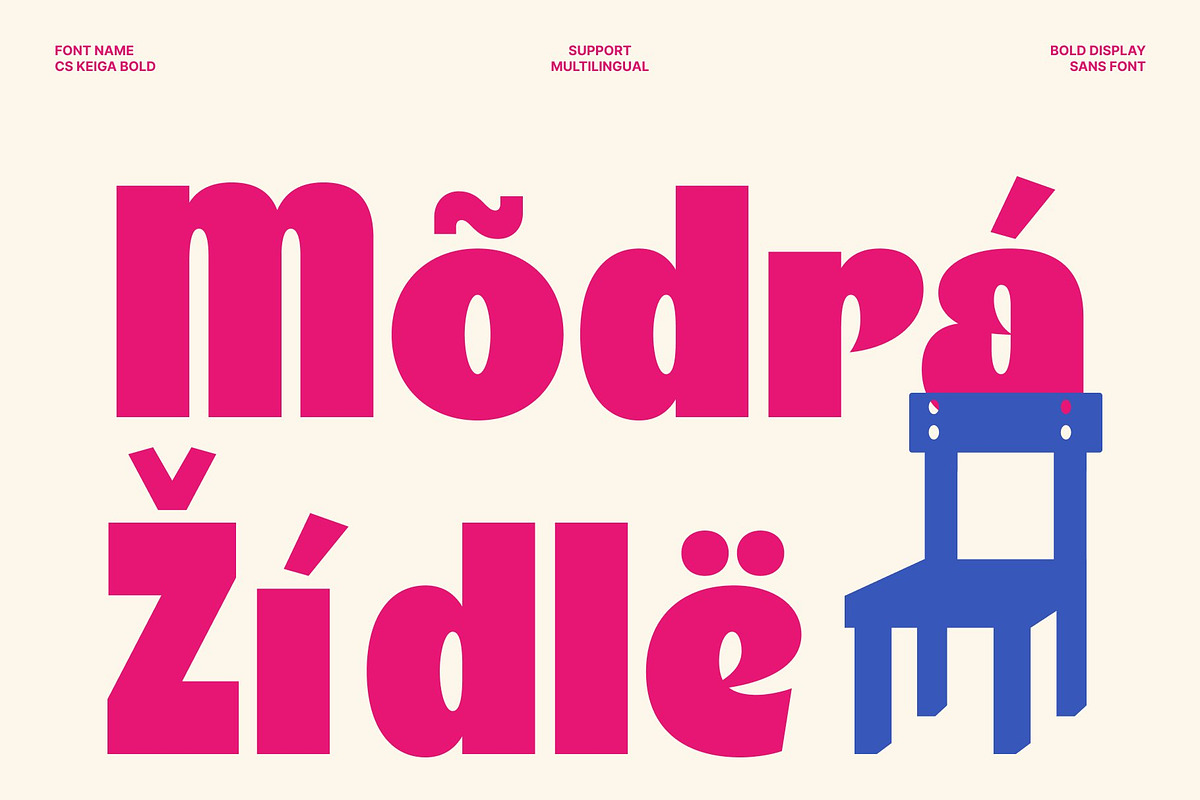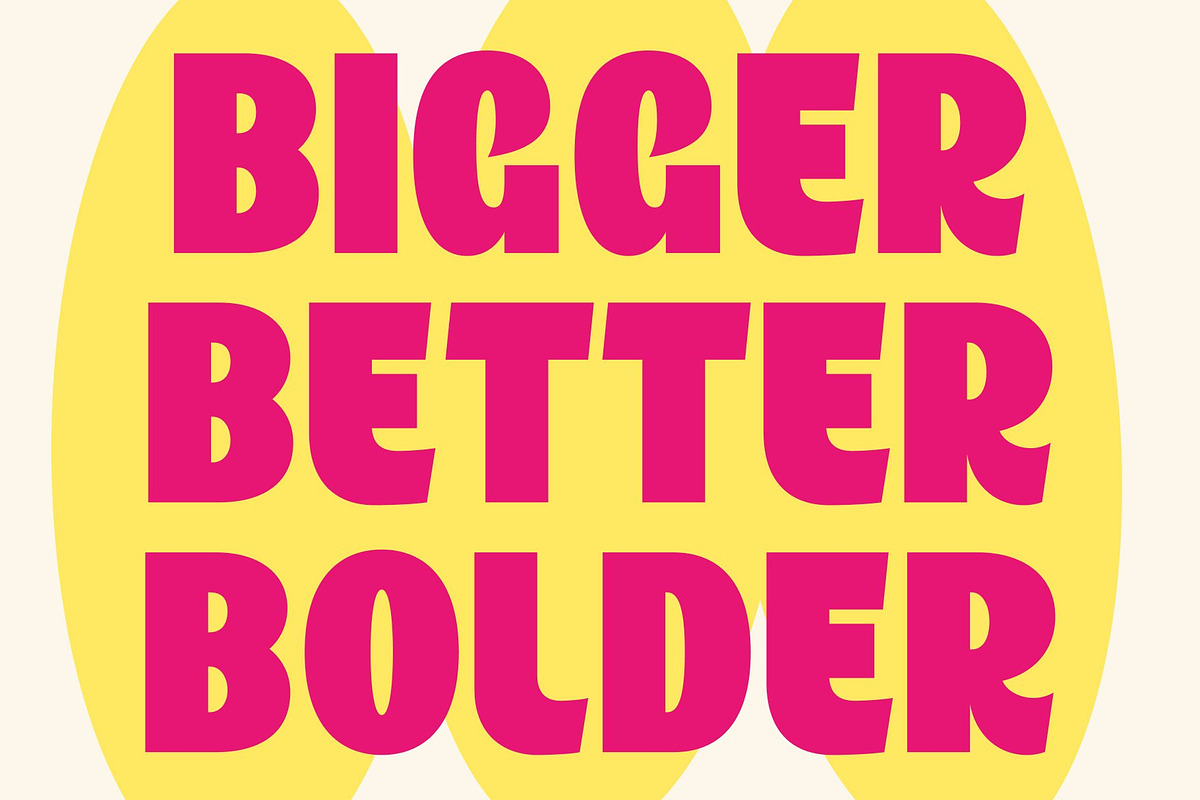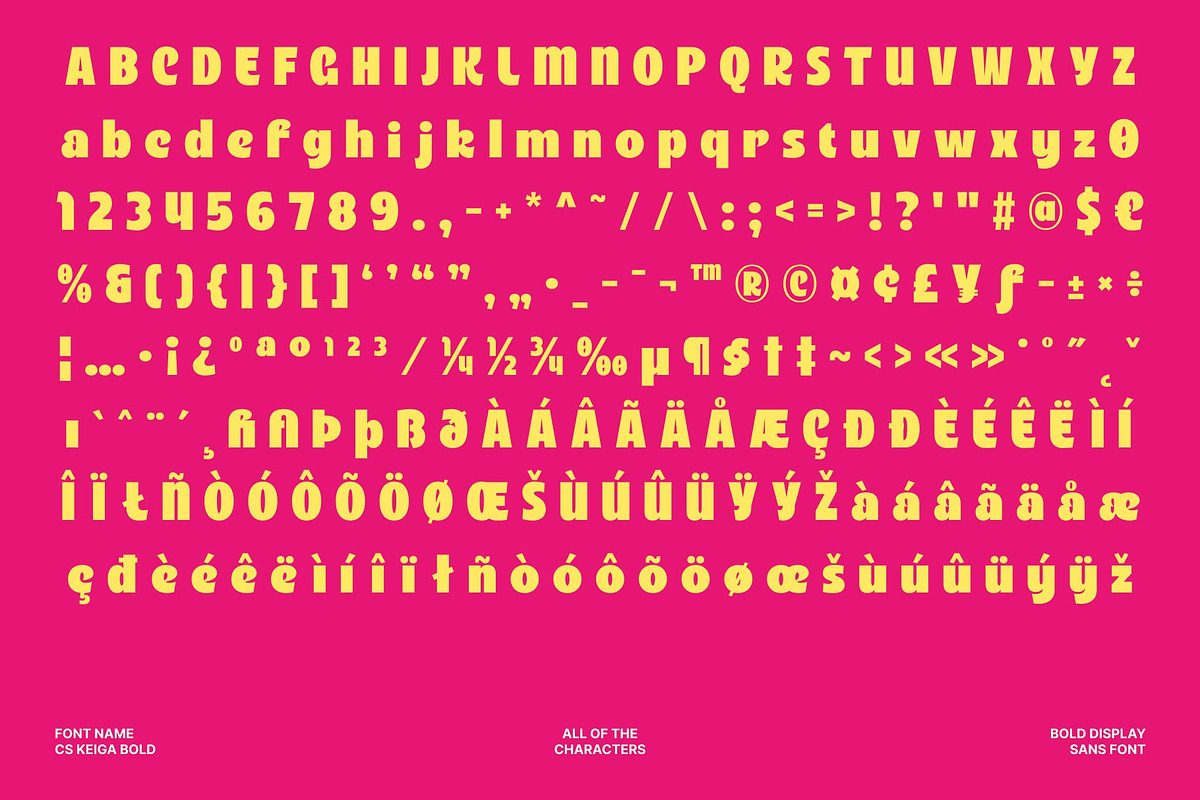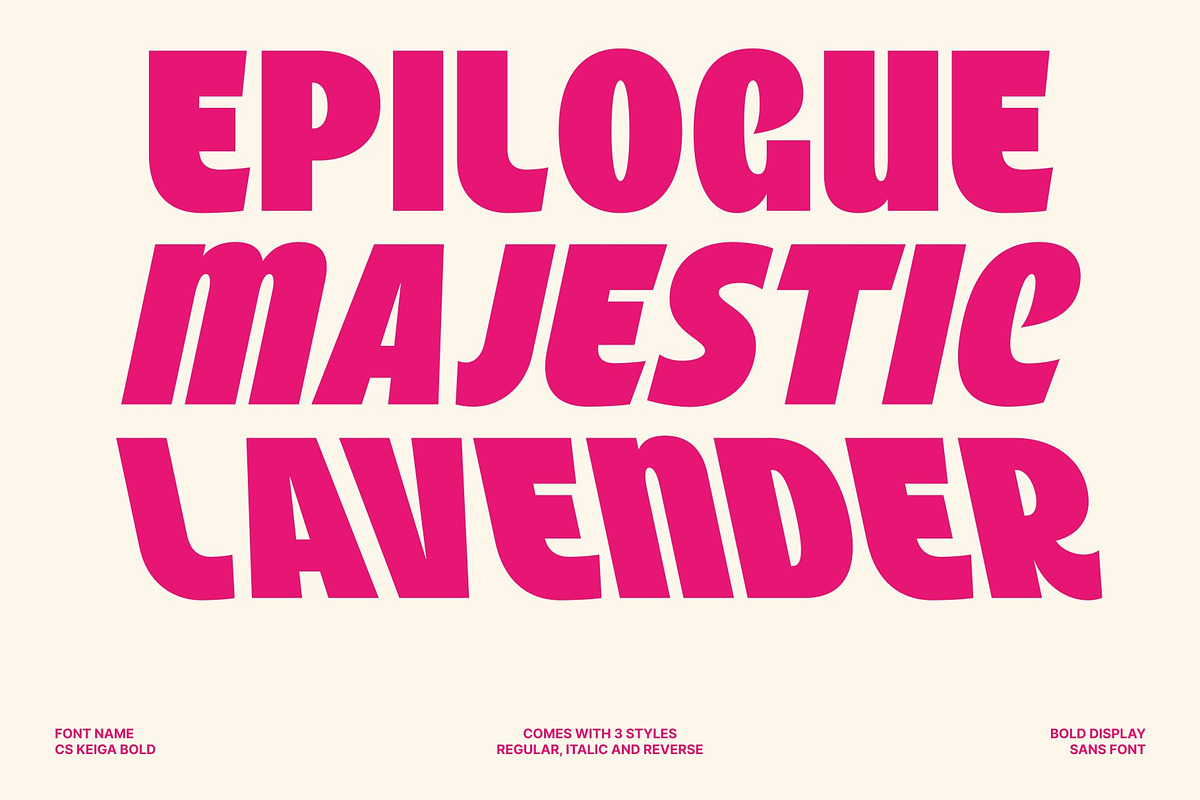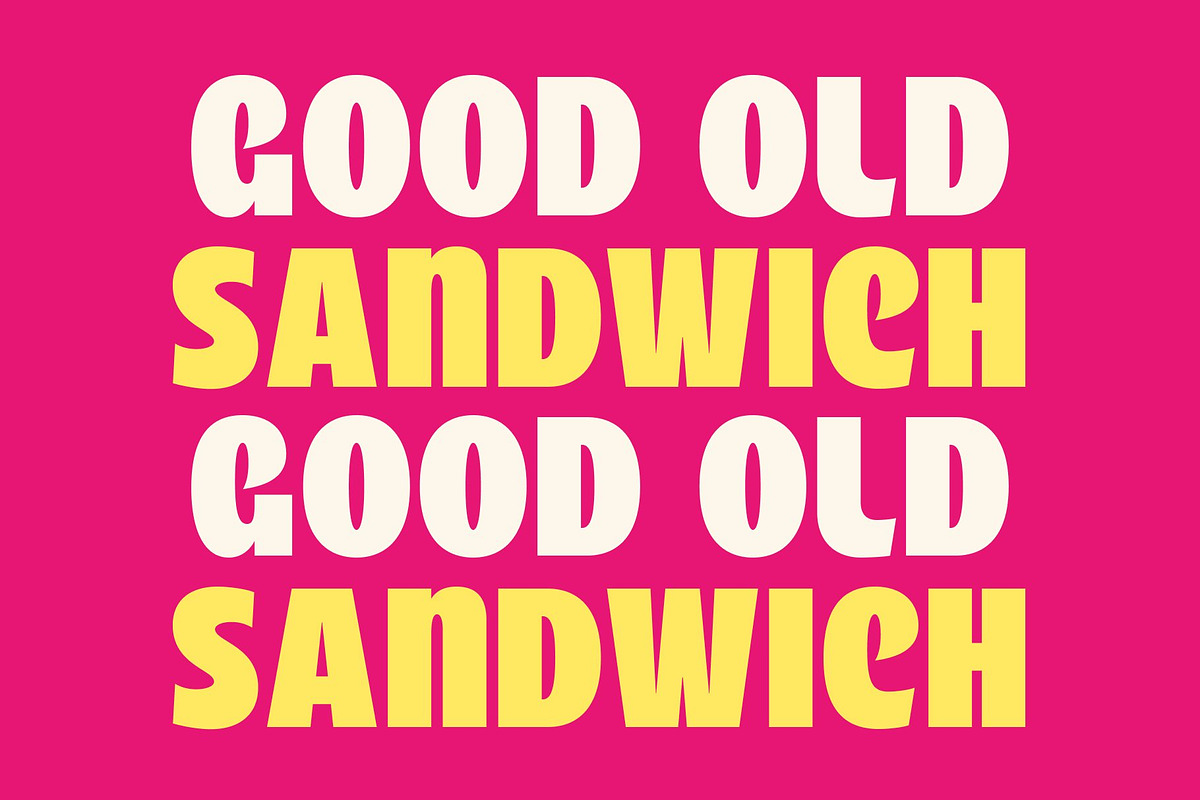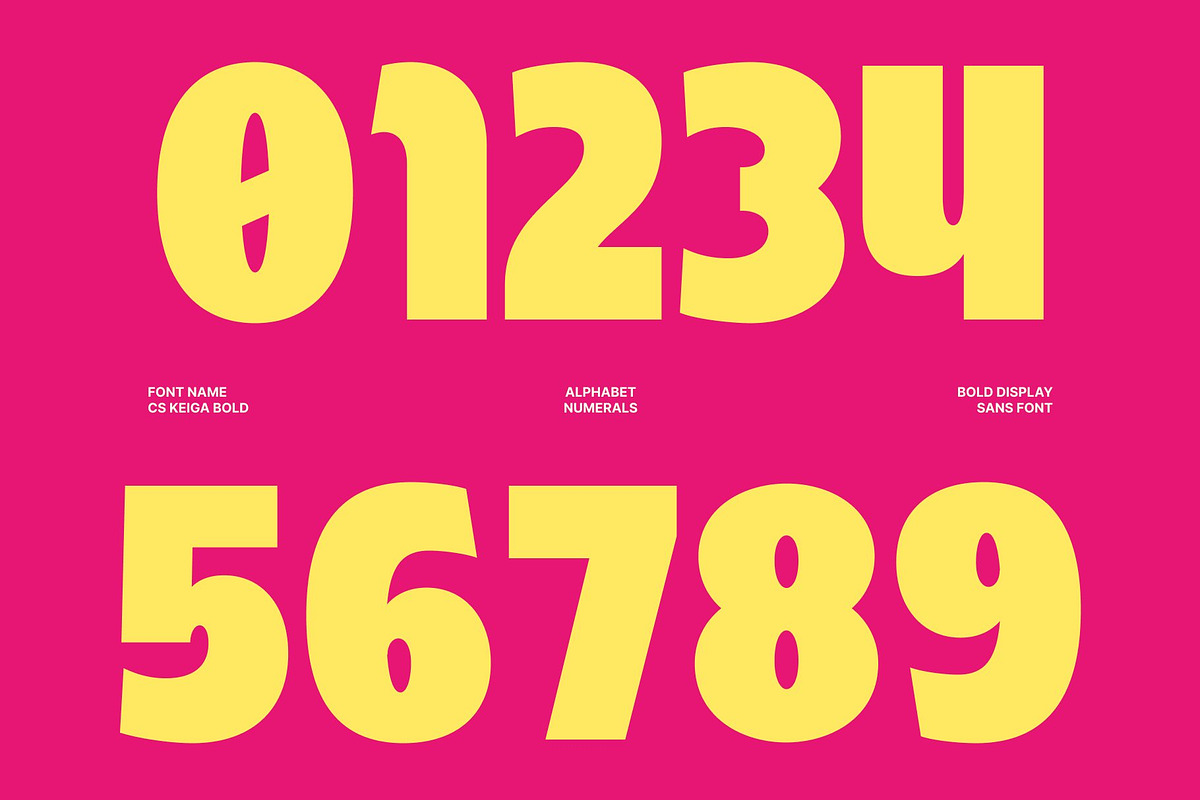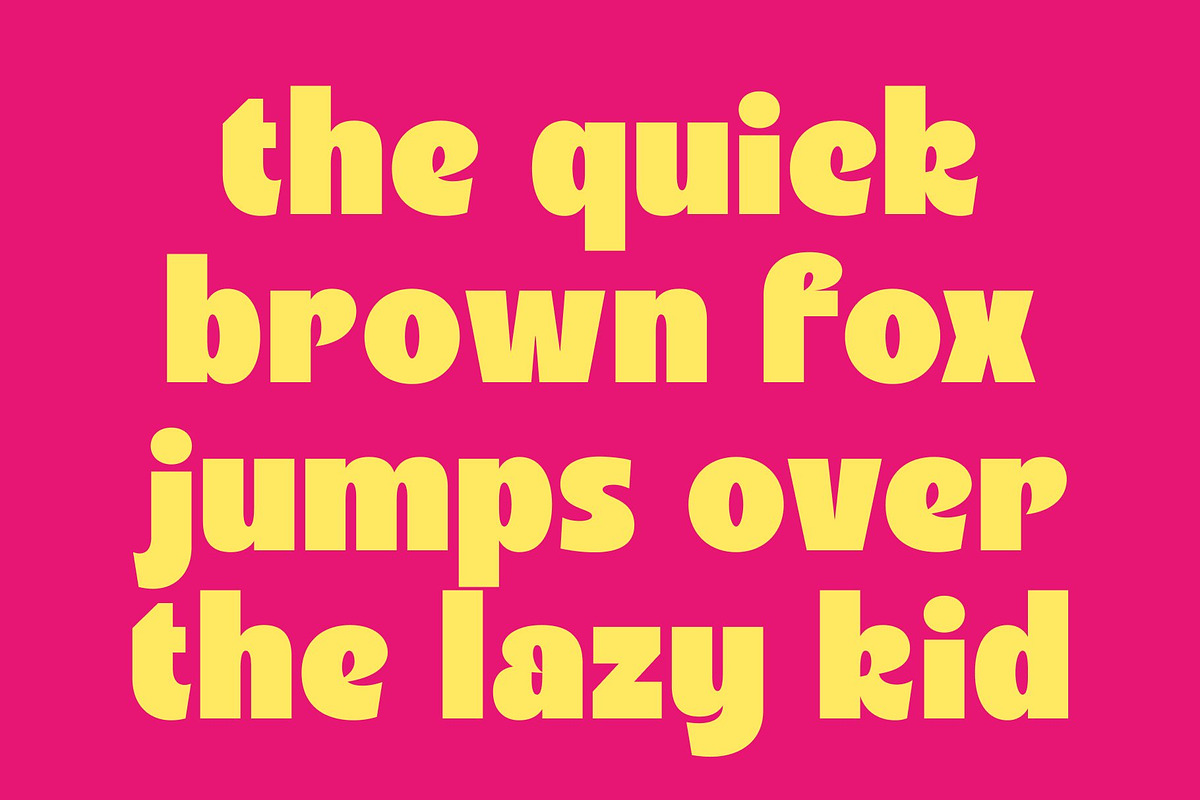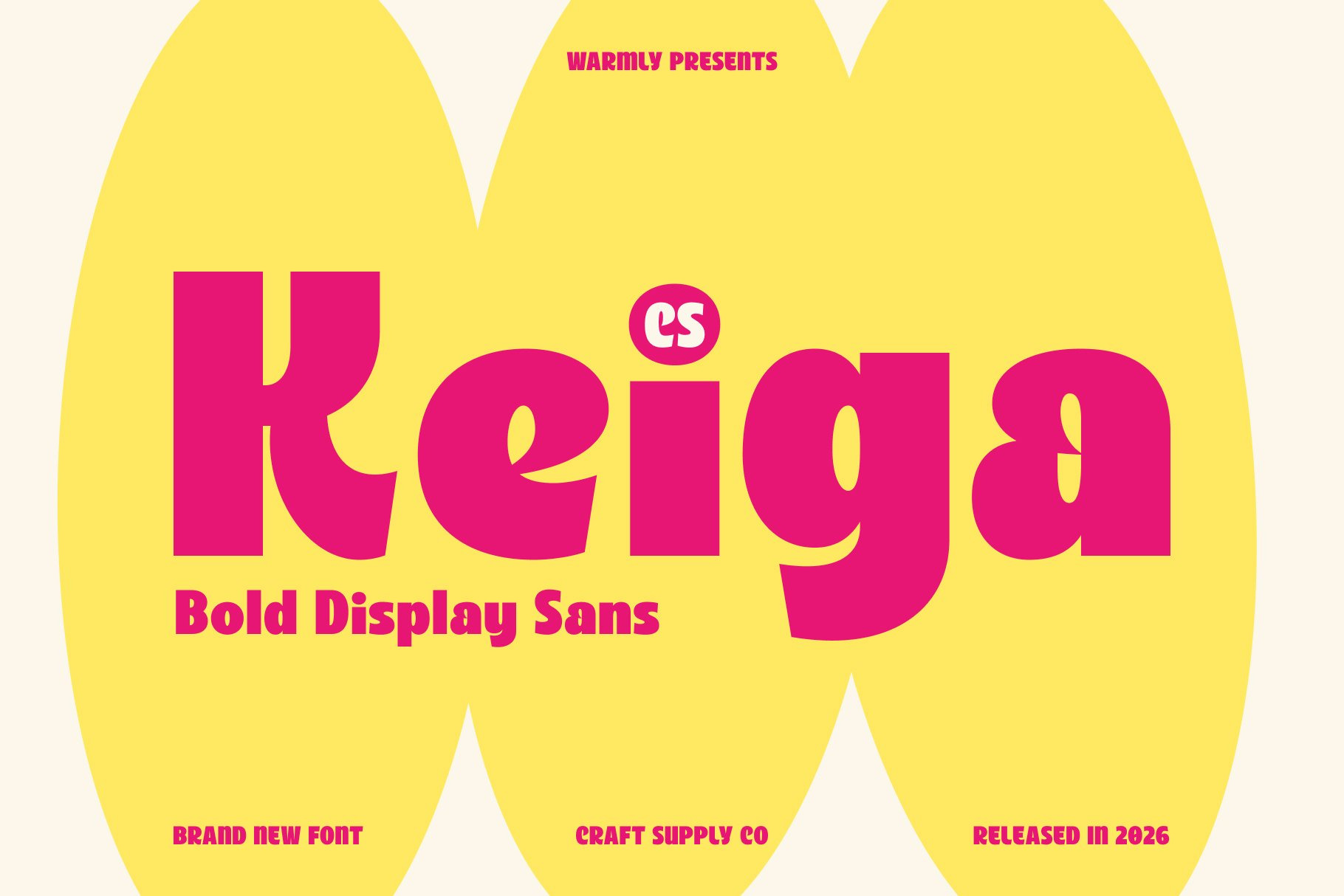
CS Keiga – Sans Serif Font
CS Keiga – Bold Sans Serif with Playful Energy
Bold Sans Serif with Fun Contemporary Style This is a bold sans serif font designed to bring energy, personality, and confidence to modern typography. With its strong letterforms and playful character, this typeface creates an engaging visual presence that feels lively, approachable, and full of charm. It is crafted for designers who want typography that stands out while maintaining clarity and versatility.
Playful Shapes with Strong Impact The defining feature of lies in its bold construction paired with cheerful design details. Its expressive forms create a friendly and dynamic rhythm, allowing text to capture attention instantly. The balance between strength and playfulness gives the font a distinctive personality that feels both modern and memorable.
Confident Character with Versatile Appeal This font combines clean sans serif structure with a fun and creative attitude, making it adaptable across a variety of design styles. Its bold proportions ensure excellent visibility in display settings, while its approachable character keeps compositions feeling fresh and engaging. The result is a typeface that is both impactful and enjoyable to use.
Perfect for Displays, Branding, and Posters From eye-catching titles and branding projects to posters, packaging, and creative campaigns, this font offers a versatile typographic solution. Its combination of bold presence, playful style, and modern clarity ensures your designs feel energetic, distinctive, and visually appealing.
CS Keiga Regular
CS Keiga Italic
CS Keiga Reverse Italic